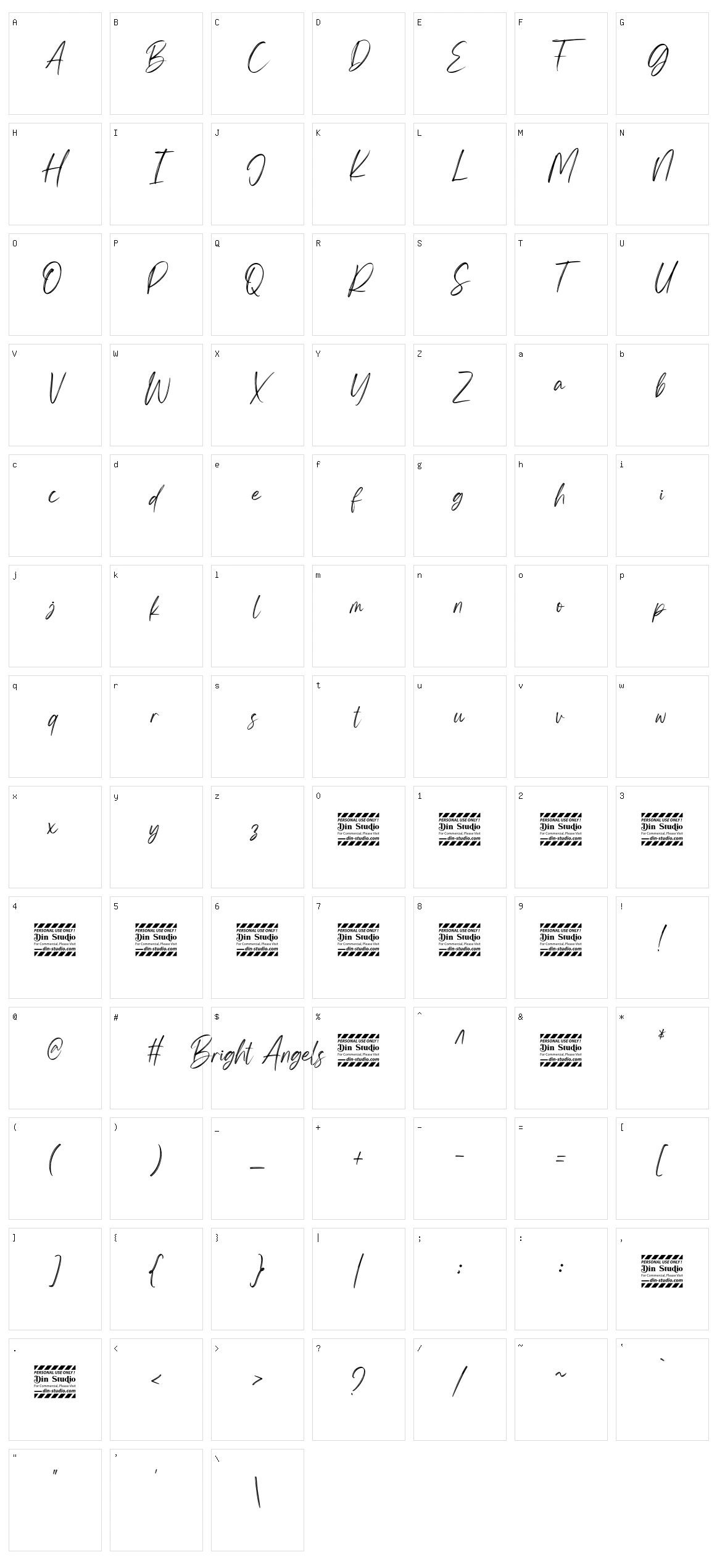
The free font Bright Angels is carefully designed by Din Studio, showcasing a thoughtful balance of creativity and usability and falls under the Script font style. When you download the ZIP file, it contains only 628.84 KB of font files, making it lightweight and quick to download. Please review the license details below to understand permitted usage and distribution rights. If license information is not available, we recommend using this font for personal projects only or contacting the author directly for commercial usage permissions.